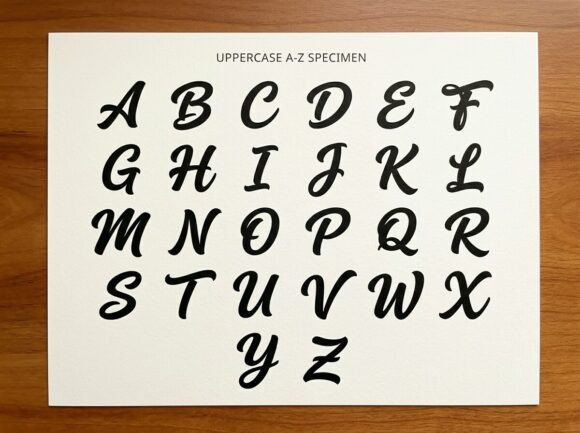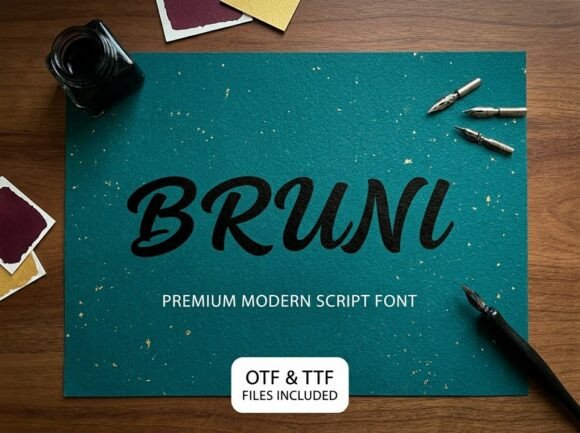
Make a Lasting Impression with Bruni: The Contemporary Script Typeface
In the world of typography, a font can make or break the visual identity of a brand. For designers and crafters looking to create a lasting impression, Bruni font is an excellent choice. This contemporary script typeface embodies a “fluid-and-fashionable” soul, making it perfect for high-end editorial layouts, modern boutique branding, and creative projects.
The Unique Characteristics of Bruni Font
Bruni font features sweeping, brush-like letterforms that are uniquely characterized by rhythmic, hand-painted strokes. The casual-yet-confident structural weight of this font bridges the gap between luxury editorial layouts and modern boutique branding. The result is a font that exudes an air of sophistication and elegance, while still being approachable and modern.
Expressive Personality and Seamless Flow
One of the standout features of Bruni font is its expressive personality and seamless flow. The font’s hand-painted strokes and rhythmic letterforms create a sense of movement and fluidity, making it perfect for projects that require a dynamic and creative approach. Whether you’re designing an independent jewelry identity, a boutique fashion logo, or creative event stationery, Bruni font is sure to make a lasting impression.
Ideal Applications for Bruni Font
So, what are the ideal applications for Bruni font? Here are a few ideas to get you started:
- Independent Jewelry Identities: Bruni font is perfect for creating unique and eye-catching jewelry brand identities. The font’s luxurious feel and elegant letterforms make it ideal for high-end jewelry brands.
- Boutique Fashion Logos: For boutique fashion brands looking to create a stylish and sophisticated visual identity, Bruni font is an excellent choice. The font’s modern and trendy feel makes it perfect for fashion brands that want to stand out from the crowd.
- Creative Event Stationery: Bruni font is also ideal for creative event stationery, such as wedding invitations, party invitations, and other special occasion stationery. The font’s elegant and sophisticated feel makes it perfect for creating memorable and impactful event branding.
- High-Impact Social Media Headers: Finally, Bruni font is perfect for creating high-impact social media headers that are sure to grab attention. The font’s bold and expressive personality makes it ideal for social media graphics, blog headers, and other digital applications.
Why Choose Bruni Font?
So, why choose Bruni font for your next design project? Here are just a few reasons:
- Unique and Memorable: Bruni font is a unique and memorable typeface that is sure to make a lasting impression on your audience.
- Versatile: Bruni font is versatile and can be used for a wide range of design applications, from high-end editorial layouts to modern boutique branding.
- Elegant and Sophisticated: Bruni font exudes an air of elegance and sophistication, making it perfect for luxury brands and high-end design projects.
- Easy to Read: Despite its elegant and sophisticated feel, Bruni font is easy to read and understand, making it perfect for body text and other applications where readability is key.
In conclusion, Bruni font is an excellent choice for designers and crafters looking to create a lasting impression with their design projects. With its unique and memorable letterforms, elegant and sophisticated feel, and versatile applications, Bruni font is sure to become a go-to typeface for creative professionals. Whether you’re designing an independent jewelry identity, a boutique fashion logo, or creative event stationery, Bruni font is the premier choice for making a lasting impression.